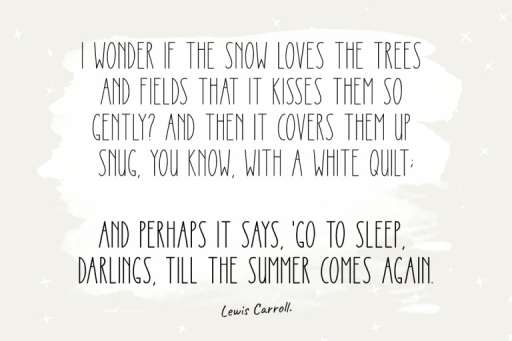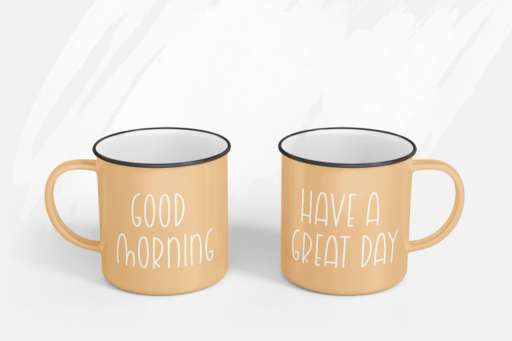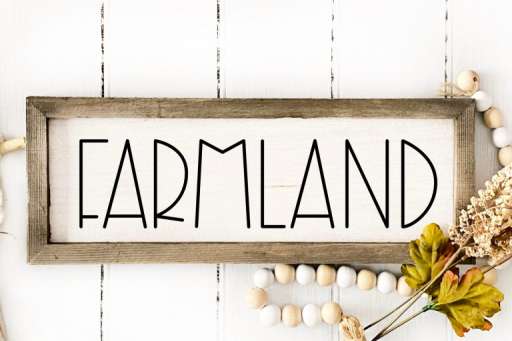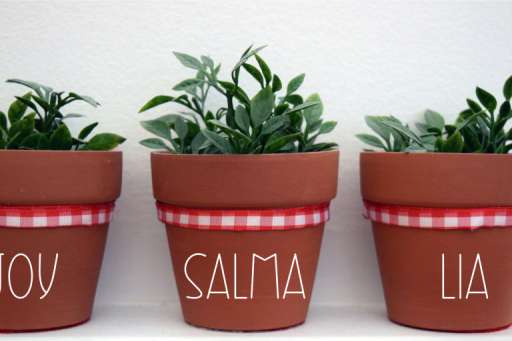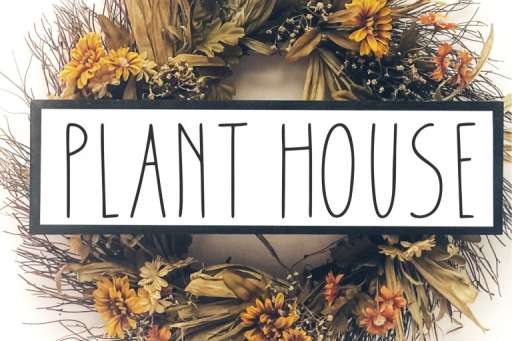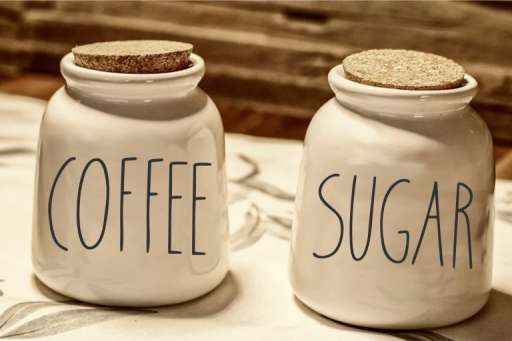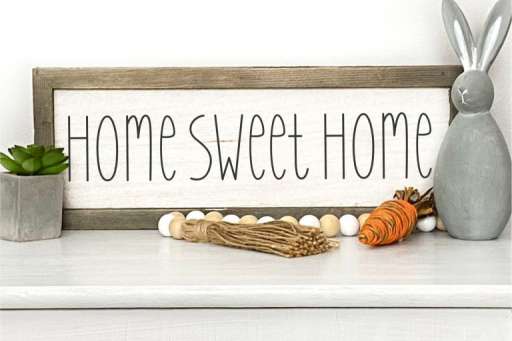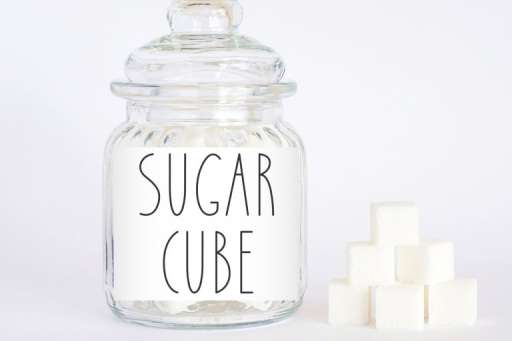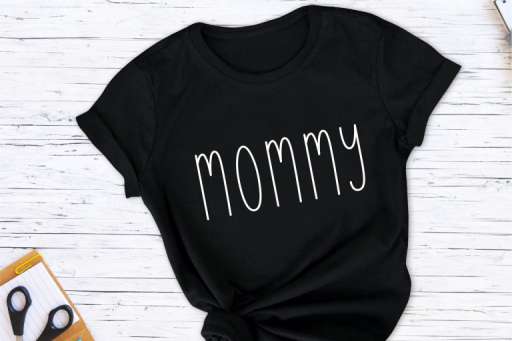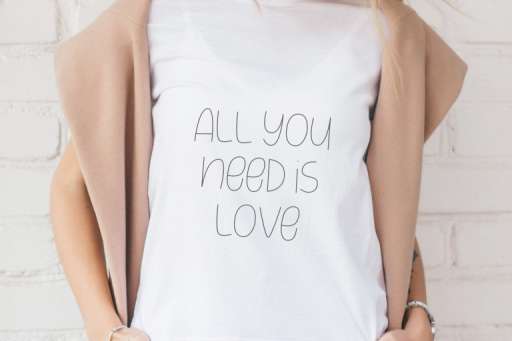
Handwritten Farmhouse Bundle
Handwritten Farmhouse Bundle is a tall and skinny font perfect for your home decor and craft designs. This font is especially perfect for craft projects.